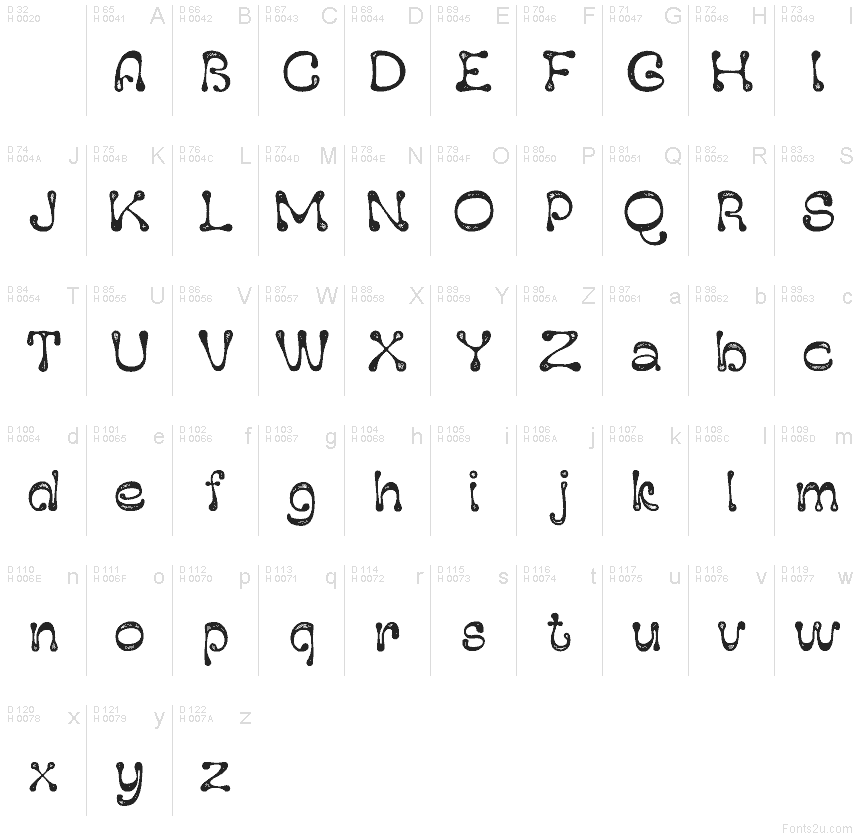
Peacy Stamp Regular Demo
Peacy Stamp font by Craft Supply Co. is a display typeface designed to bring a new approach to design. The characters are built into a curved style with organic forms that offer an artistic edge. Whimsical and modern, they include textures in their appearance which allows the font to combine different styles while used in posters and other designs.